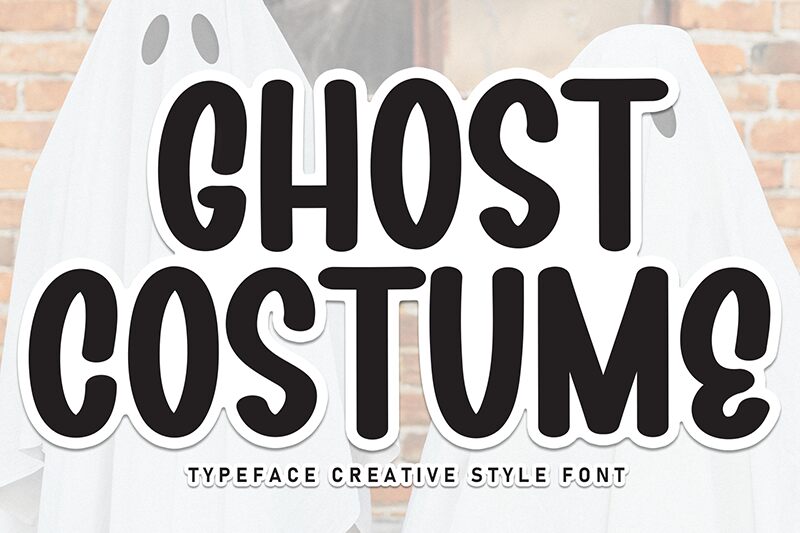
Ghost Costume
Ghost Costume font by Scratchones is a light handwritten font with condensed letter sizes. The stylish alphabet has a natural appearance with an optimized elegance of handwritten letters. Ghost Costume simultaneously appears modern and vintage which maintains its relevancy.